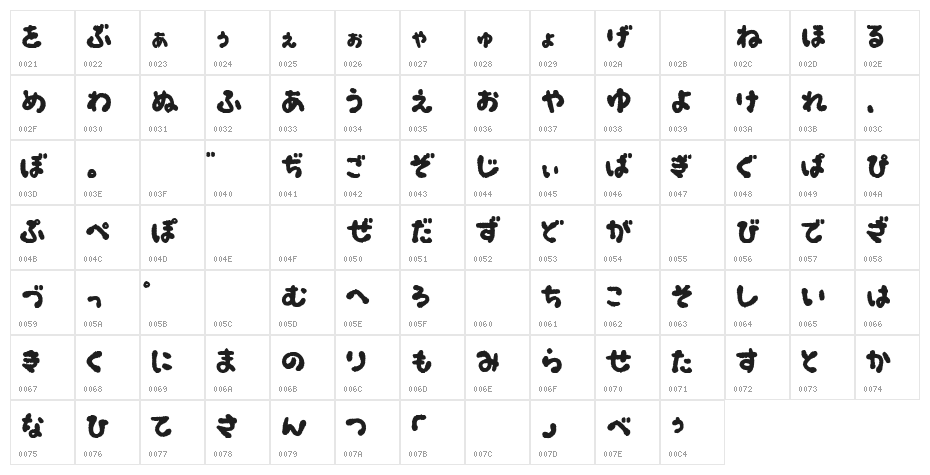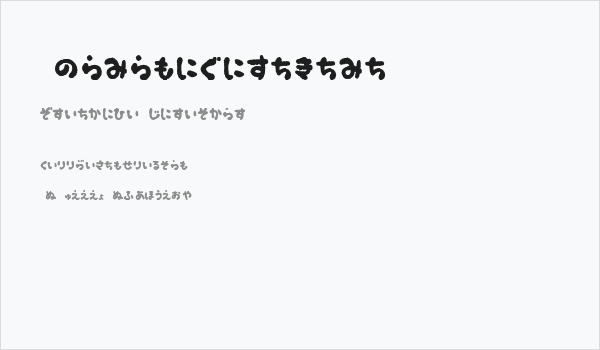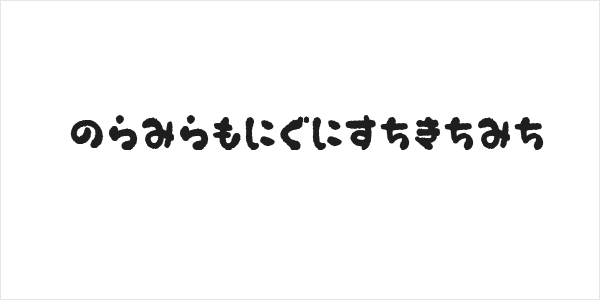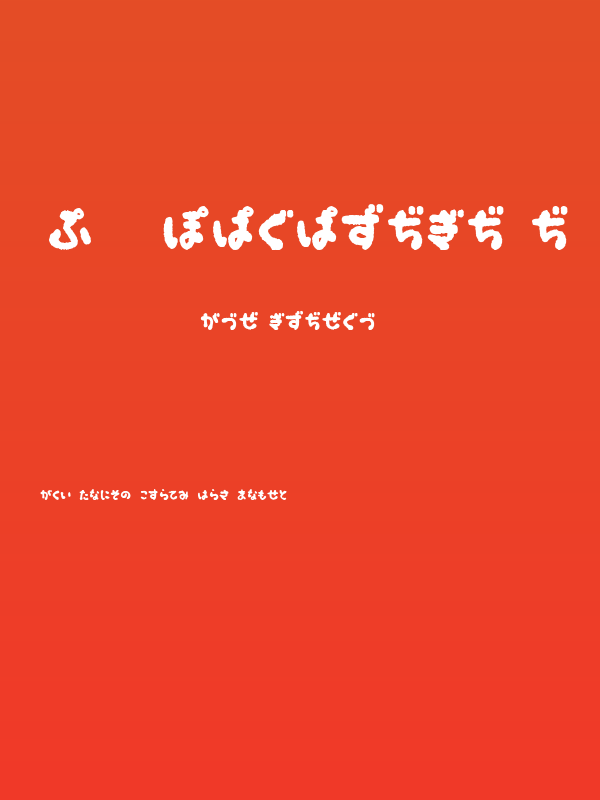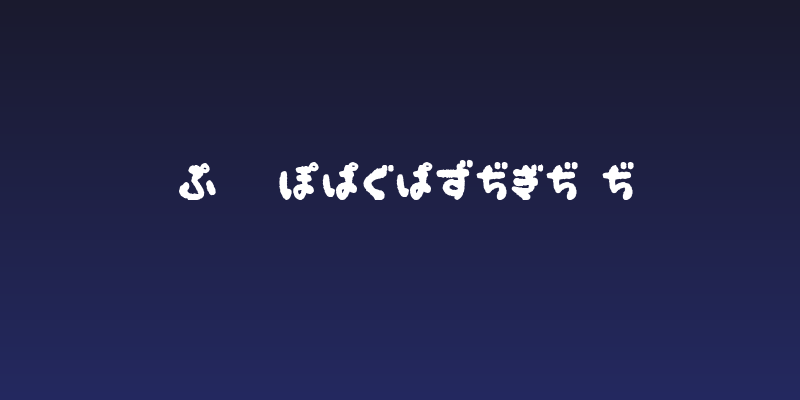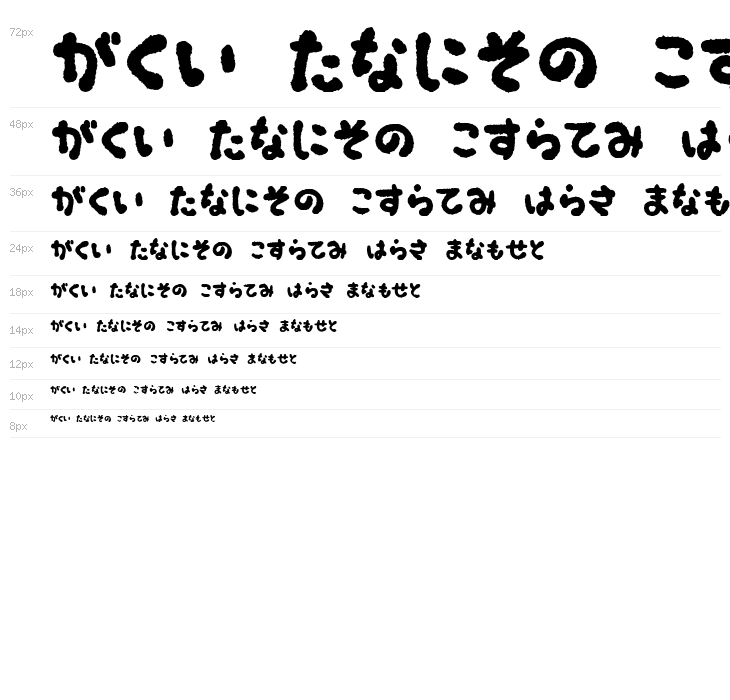
OkonomiHiragana Font
OkonomiHiragana Description
This font features a playful and rounded style, reminiscent of traditional Japanese calligraphy. The characters are bold and slightly irregular, giving them a hand-drawn appearance that adds a touch of whimsy and charm. The strokes are thick and consistent, creating a strong visual impact. This font is particularly suitable for designs that require a cultural or artistic flair, as it captures the essence of Japanese aesthetics. The overall look is both friendly and approachable, making it ideal for informal and creative projects.
Use CaseHeadlines, Artistic designs, Cultural projects
Proposed ProjectsIdeal for cultural posters, artistic designs, children's books, and creative branding.